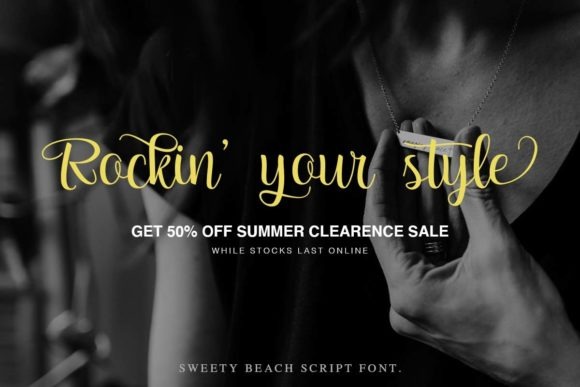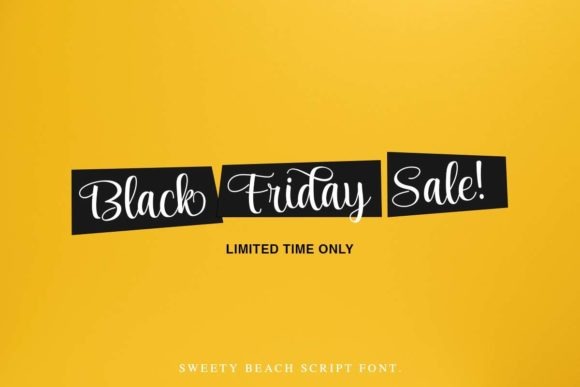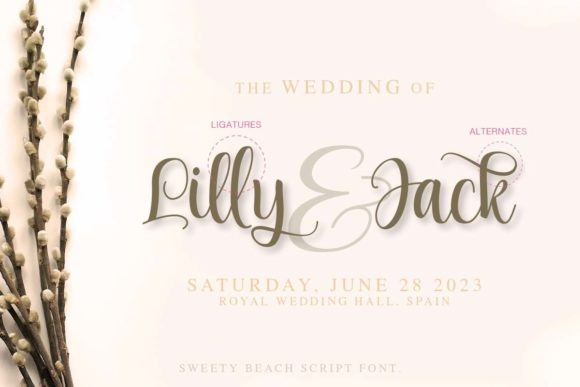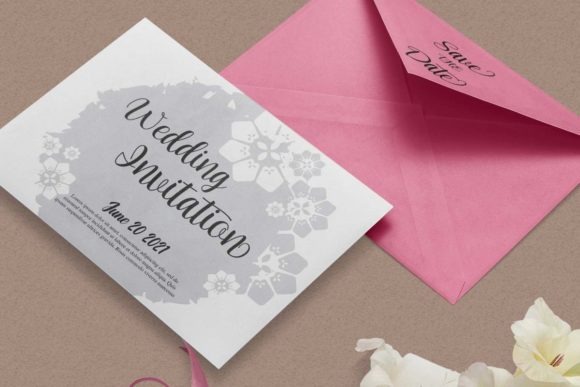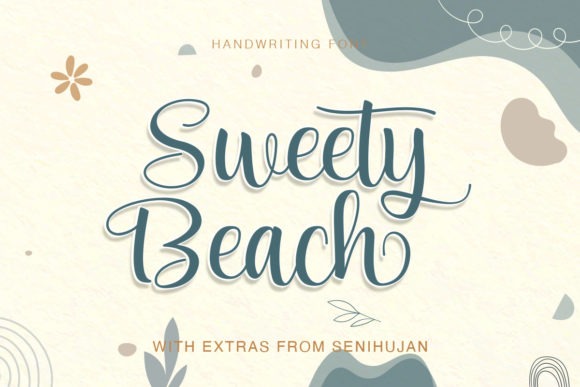
Sweety Beach Script Font
This font designed by Senihujan Studio, and this is a premium font, are sold on creativefabrica, but it was great, it is free today for download. The Sweety Beach font is great for Branding, Logo Design, Lettering, Logotype, Clothing, Poster, magazine, and other design projects.